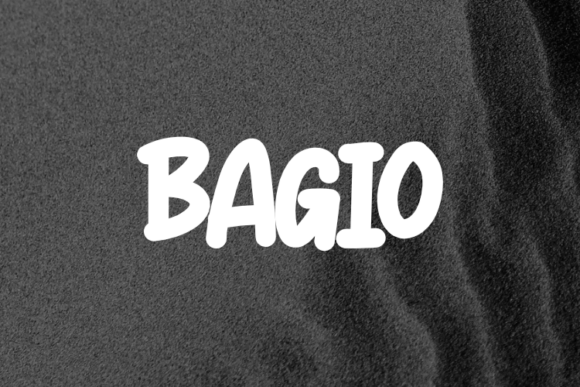
Unlocking Design Potential with Bagio Font
Have you ever been in the middle of a design project, and suddenly, it feels like something’s missing? You’re not alone. I recall working on a t-shirt graphics project for a fashion-forward clothing line, and no matter how hard I tried, the design just didn’t pop. That’s when I stumbled upon Bagio Font, and it completely transformed my design. In this article, we’ll dive into the world of Bagio, an exquisite font that’s been making waves in the design community.
The Birth of Bagio: A Designer’s Inspiration
Bagio’s story begins with a designer who sought to create a font that would seamlessly blend elegance with versatility. Inspired by the fluidity of modern fashion and the dynamic world of design, Bagio was crafted to enhance any canvas it touches. From fashion-forward clothing lines to captivating t-shirt graphics, this font has been making ordinary fabrics extraordinary.
An Honest Review of Bagio Font
What I Love About Bagio ✨
- 💫 Fluid form that functions seamlessly across all designs and software platforms
- 🎨 Perfect for designers wanting to stand out in a sea of sameness
While Bagio is an exceptional font, there are a few things to keep in mind:
- 🤔 Some users might find the font a bit too elegant for very casual or playful designs
| Is Bagio suitable for body text? | While Bagio is an elegant font, it’s best suited for headlines and titles. For body text, consider a cleaner font like Lato or Merriweather. |
| Does Bagio support OpenType features? | Yes, Bagio supports OpenType features, including glyphs, stylistic alternates, and more. Experiment with these features to add some personality to your design. |